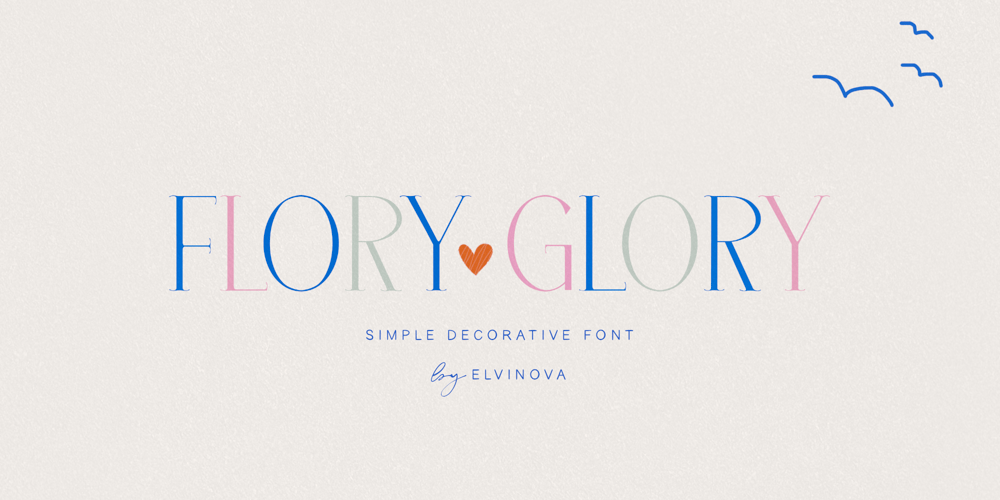
Flory Glory Font Family was designed by Elvina Gafarova and published by Elvina Studio. Flory Glory contains 2 styles and family package options. Flory Glory is a thin, decorative serif font perfect for headings, long words, and adding a cute accent. Light, friendly, elegant, it brings charm and warmth to any design. Upper/lowercase, numbers, punctuations; Regular, Bold. Language support: English, German, French, Spanish, Italian, Danish, Finnish, Portuguese, Swedish, Norwegian, Dutch, Indonesian, Luxembourgish, Icelandic, Cornish, Hungarian, Filipino, Romansh, Slovenian, Estonian, Polish, Turkish.Have a wonderful day. Thank you.